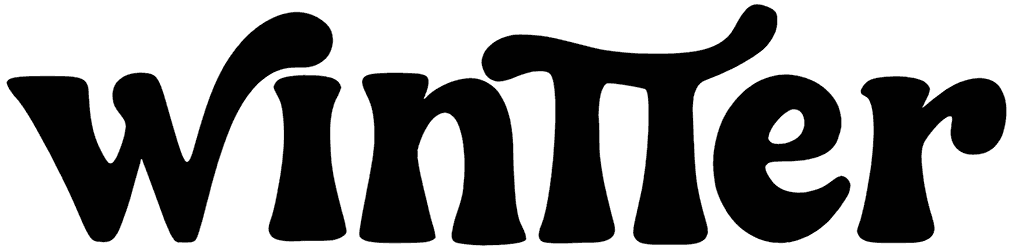
Wintter Font
Wintter is an incredible retro font that is masterfully designed to be your true assistant in bringing your creative ideas such as posters, flyers, social media posts, banner ads, and book covers to the real world. Since its characters are a little bit curved and crocked, it can add a sense of classic, dynamic, drama, and power to your graphic content.